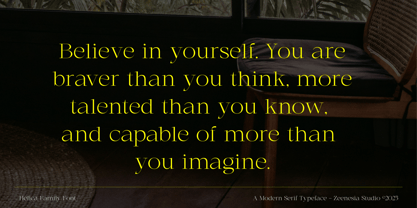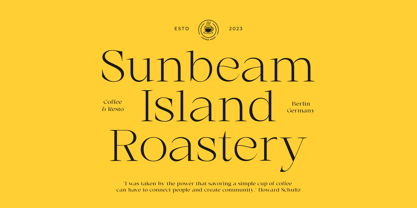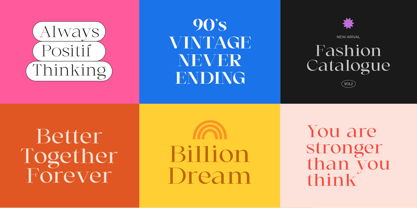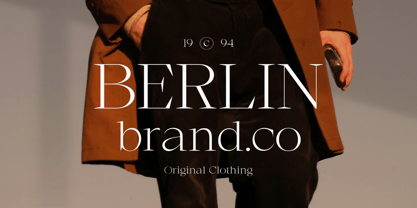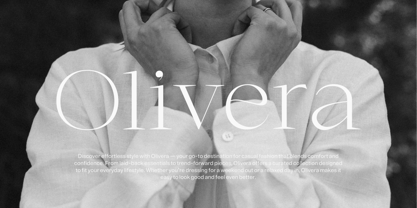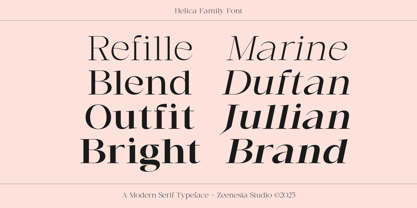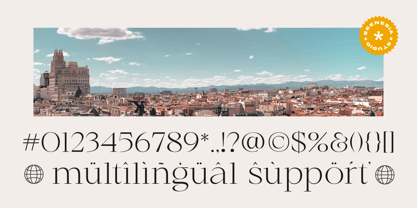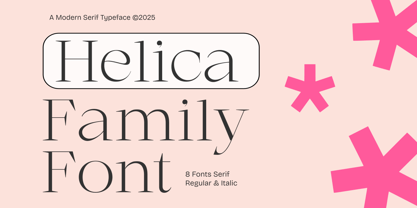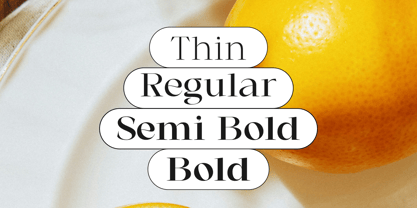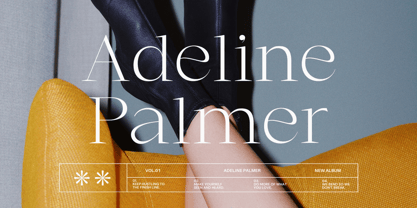
Helica
by Zeenesia Studio
The Helica Font Family was designed by Doni Purwoko and published by Zeenesia Studio. Helica contains 8 styles and family package options.
Helica – Clean, Classy, and Totally Versatile
Say hello to Helica, a modern and stylish font family designed to keep things clean, simple, and effortlessly cool. With 8 fonts in total – that’s 4 weights (Thin, Regular, Semi Bold, and Bold) plus their matching Italics – Helica gives you all the flexibility you need for any kind of project.
Whether you're working on branding, editorial design, web layouts, or even packaging, Helica’s smooth curves and balanced proportions will make your work shine. It’s neat, it’s elegant, and it plays well both in headlines and body text.
Looking for a font that’s both practical and beautiful? Helica’s got your back.